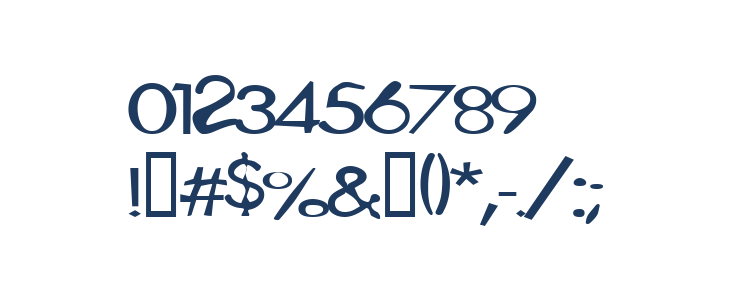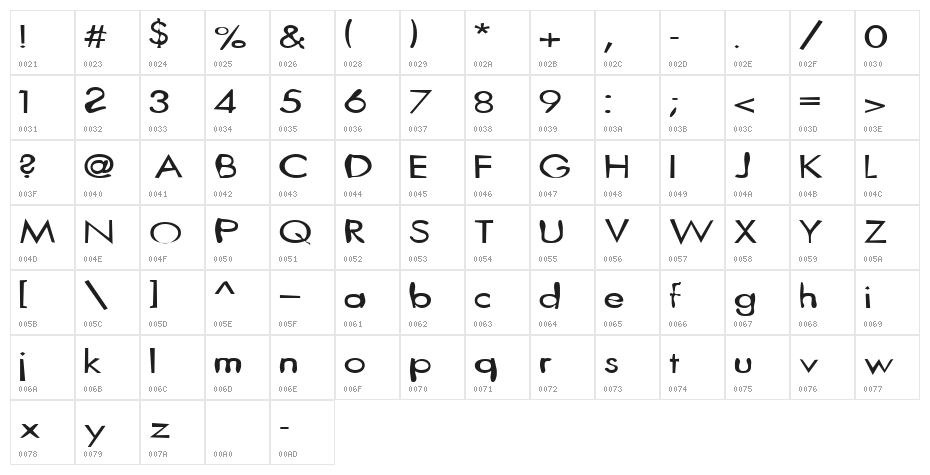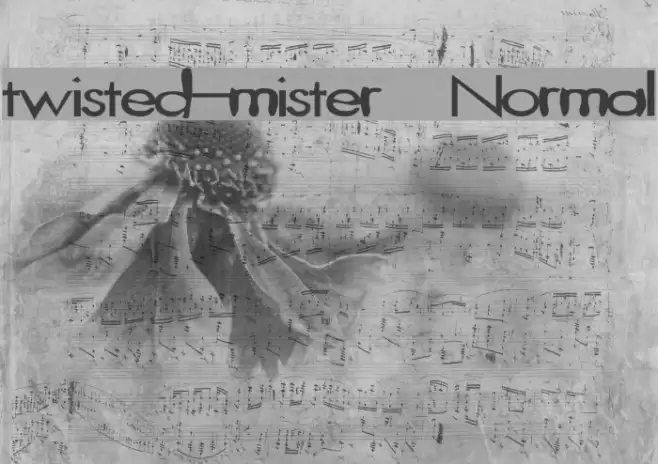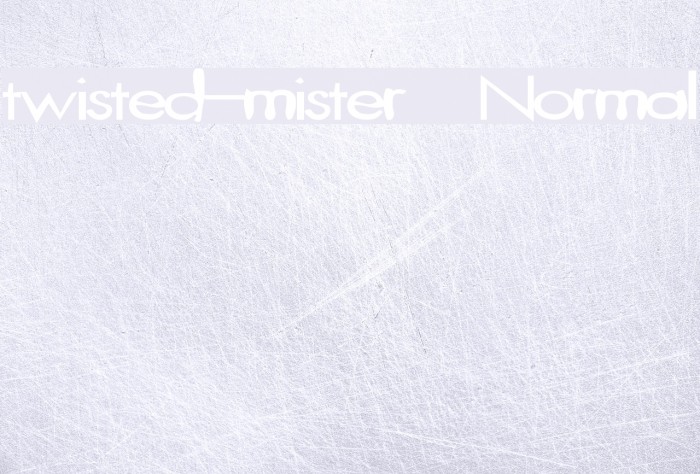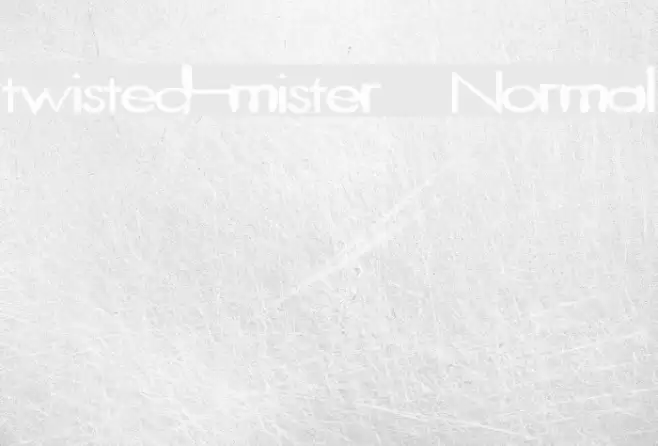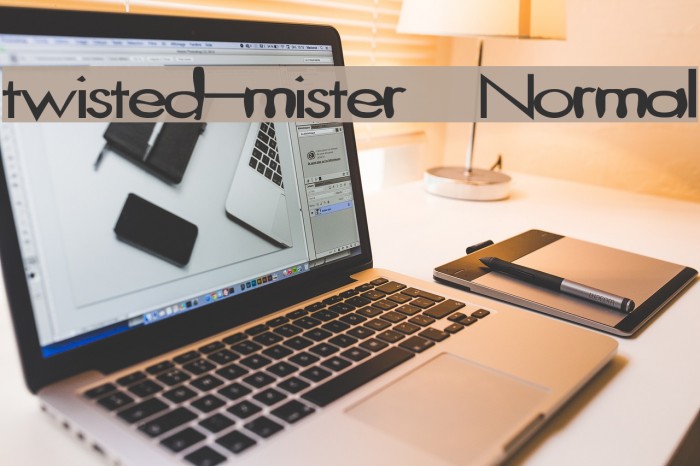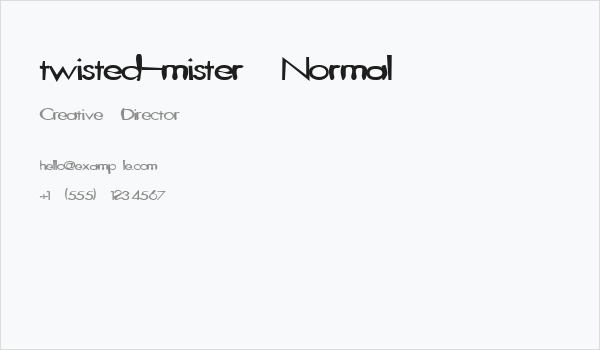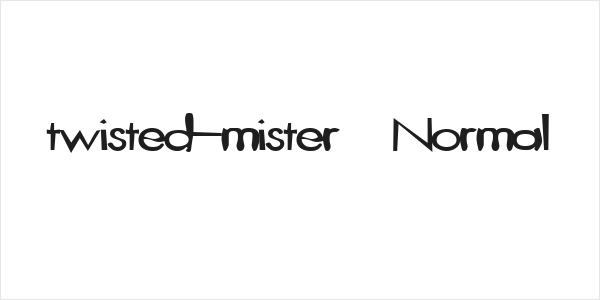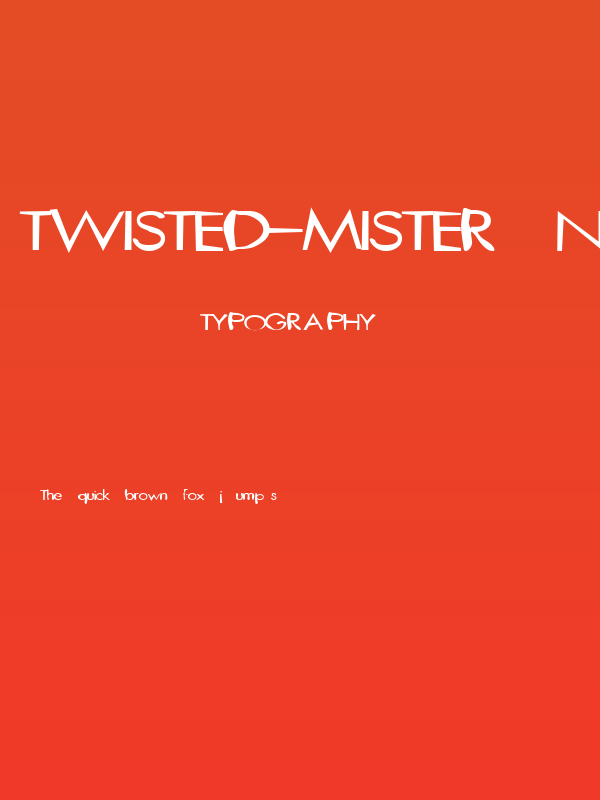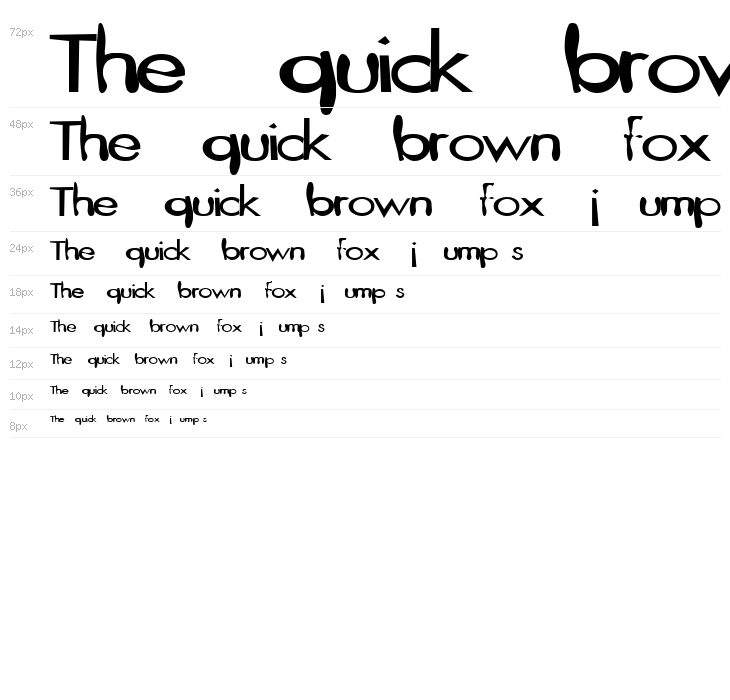
twisted_mister Normal Font
twisted_mister Normal Description
This font features a playful and quirky design with a twisted and irregular appearance. The characters exhibit a unique blend of curves and angles, giving them a dynamic and energetic feel. The uppercase letters are bold and slightly distorted, while the lowercase letters maintain a consistent whimsical style. Numbers and special characters follow the same playful theme, making the font suitable for creative and informal designs. The overall look is eye-catching and unconventional, perfect for projects that require a touch of fun and originality.